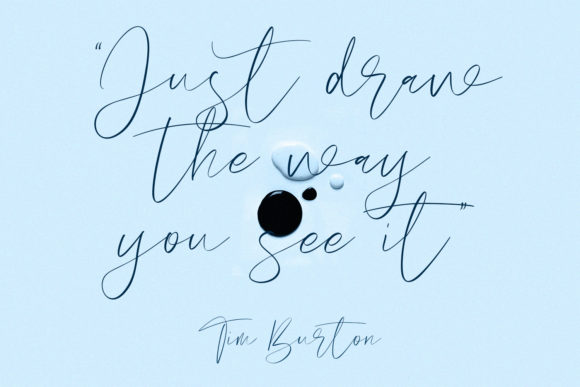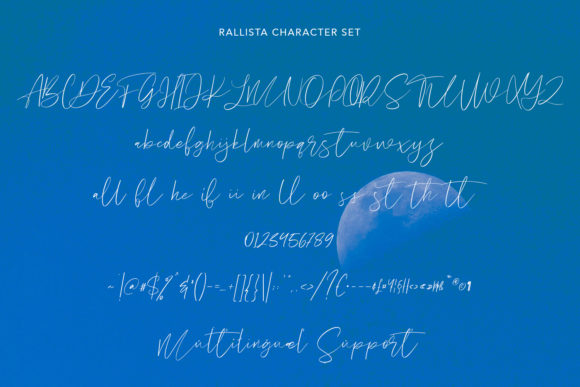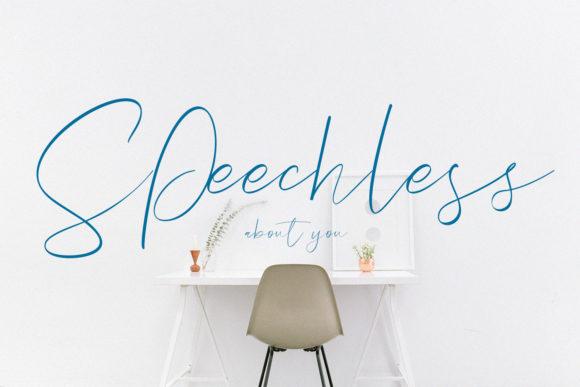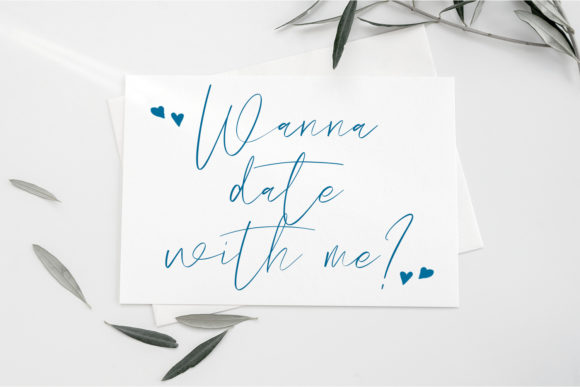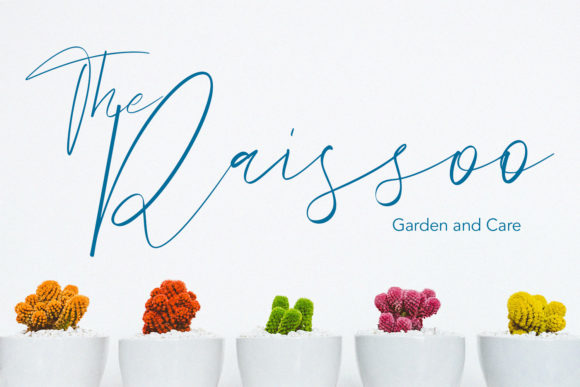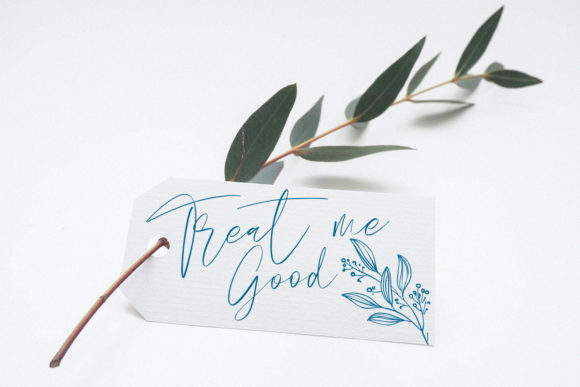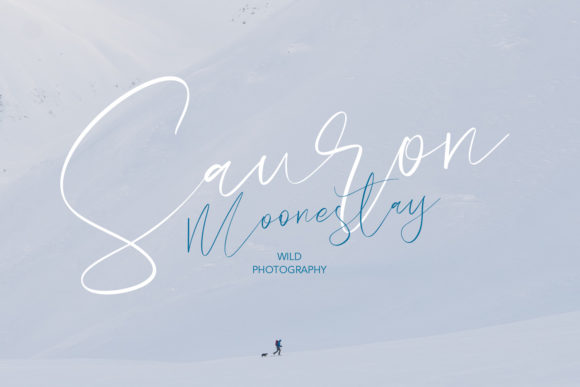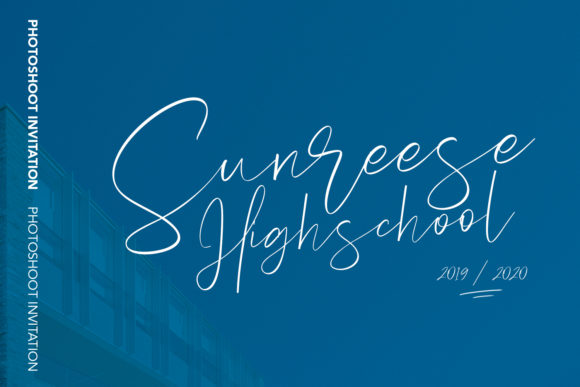
Rallista Font
About Rallista Font
Rallista is a stylish and delicate script font. It has a clean, thin and smooth vibe and it will be a hit for any design that you want to add it to.